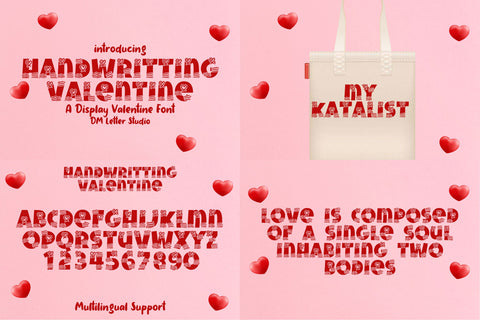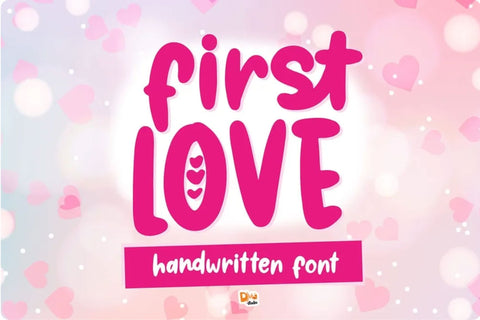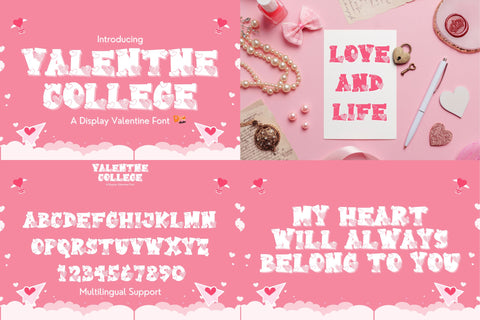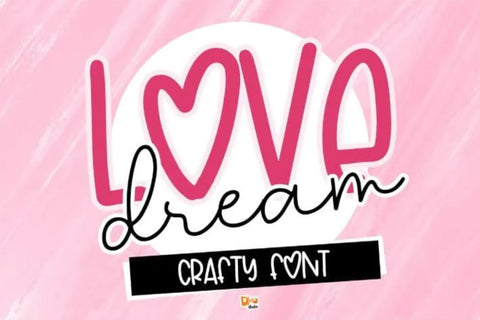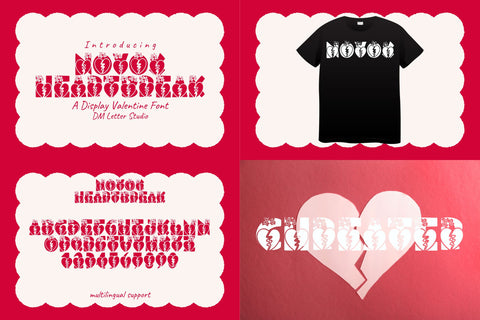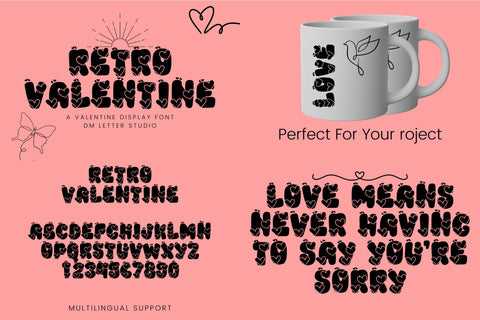
Romantic Valentine Fonts Bundle: Sweet, Retro & Modern Styles
Bring instant love-season vibes to your designs with the Romantic Valentine Fonts Bundle. This collection mixes sweet script, bubbly display, varsity classics, retro throwbacks, and clean collegiate styles, so you can build full Valentine campaigns without hunting for matching fonts. Because every style has its own personality, you can switch from cute to classy to bold in seconds while still keeping a cohesive theme. Use it for greeting cards, sticker packs, classroom Valentines, POD merch, social posts, party invites, gift packaging, and seasonal promos. As a result, your listings look more complete, more professional, and easier to sell.
What’s inside the bundle
- Love Dream
- First Love
- Heart Love
- Bubble Valentine
- Varsity Valentine
- Valentine College
- Retro Valentine
- Handwriting Valentine
- Novox Heartbreak
- Scholar Valentine
Why this Valentine's fonts bundle sells
First, you get variety without losing direction. You can cover cute, romantic, sporty, retro, and modern looks in one download. Next, the fonts are perfect for fast production in Canva, Photoshop, and Illustrator, so you can build templates, sticker sheets, and product mockups quickly. Then your designs scale well across formats, from tiny labels and tags to big poster headlines. Moreover, the bundle makes pairing easy: use a bold display font for the main message, then add handwriting or a clean style for names and details. Therefore, you can release more Valentine listings, faster, with consistent results.
Fast pairings you can use right away
- Bubble Valentine + Handwriting Valentine for cute stickers and cards
- Varsity Valentine + Scholar Valentine for sporty school vibes
- Retro Valentine + Love Dream for throwback posters and packaging
- Valentine College + First Love for clean, modern Valentine branding
- Novox Heartbreak + Heart Love for edgy romance and bold headlines
Best uses and quick wins
- Valentine cards, invitations, and love-note templates
- Sticker packs, labels, and packaging seals
- Classroom Valentine sets and printable activities
- POD merch: tees, totes, mugs, and hoodies
- Social posts, reels covers, and sale banners
Design tips for better Valentine products
Keep your main phrase short and bold, then support it with a cleaner font for dates, names, or prices. Also, leave extra whitespace so hearts and Valentine icons don’t compete with the typography. For print, export at 300 DPI. For web, export at 2× size so edges stay smooth. Finally, save a few repeatable palettes like cherry & cream, blush & cocoa, hot pink & ivory, or burgundy & rose to keep your whole shop looking consistent.